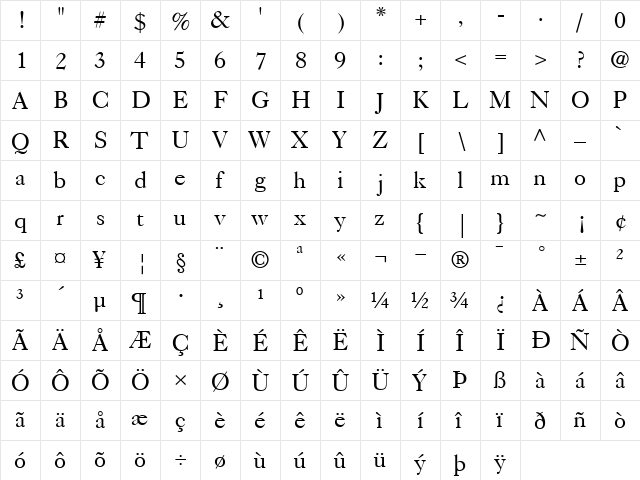
Caslon540Roman Roman
Design Context for Caslon540Roman Typeface
Caslon540Roman offers clean, dependable letterforms without strong stylistic allegiance, making it a practical choice for designers who need flexibility.
Pro Tip: Pair Caslon540Roman with a font of contrasting weight or personality to build a more expressive typographic hierarchy.